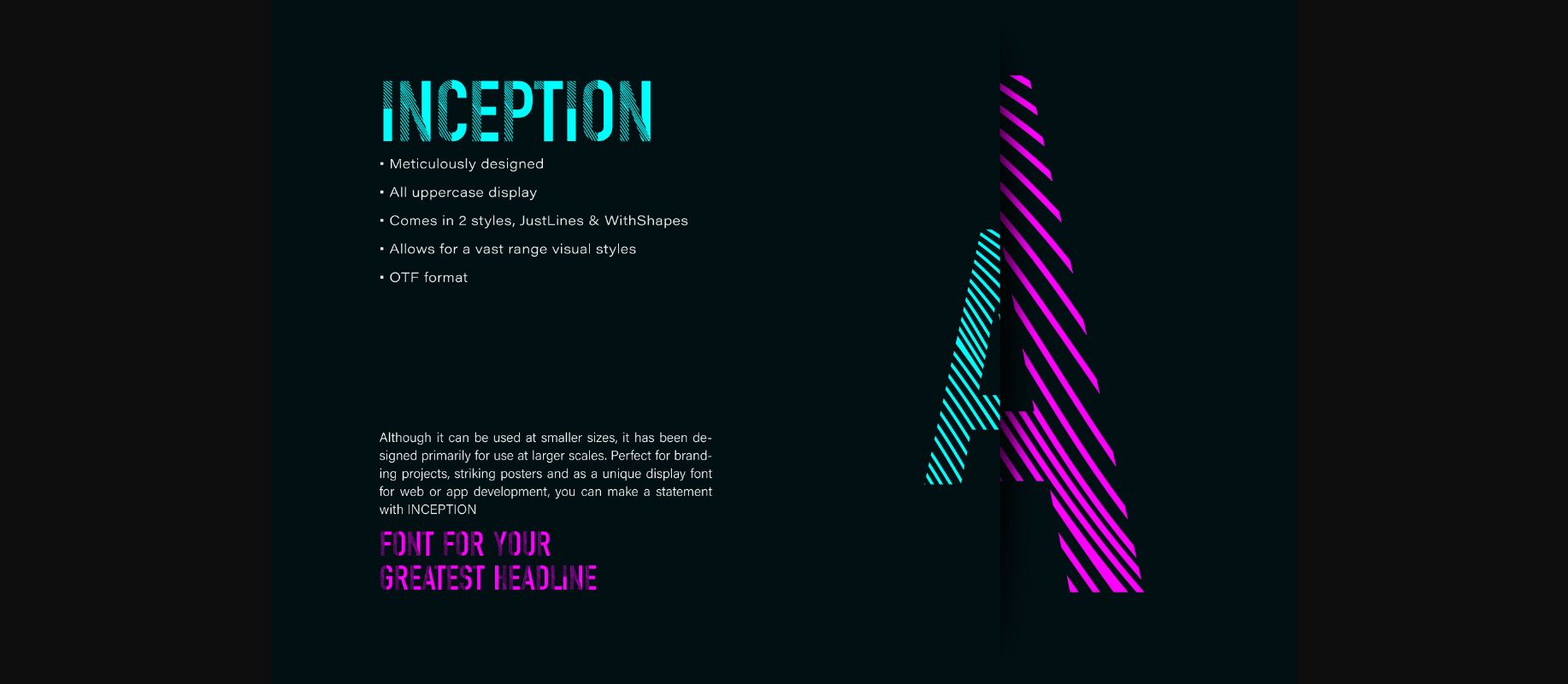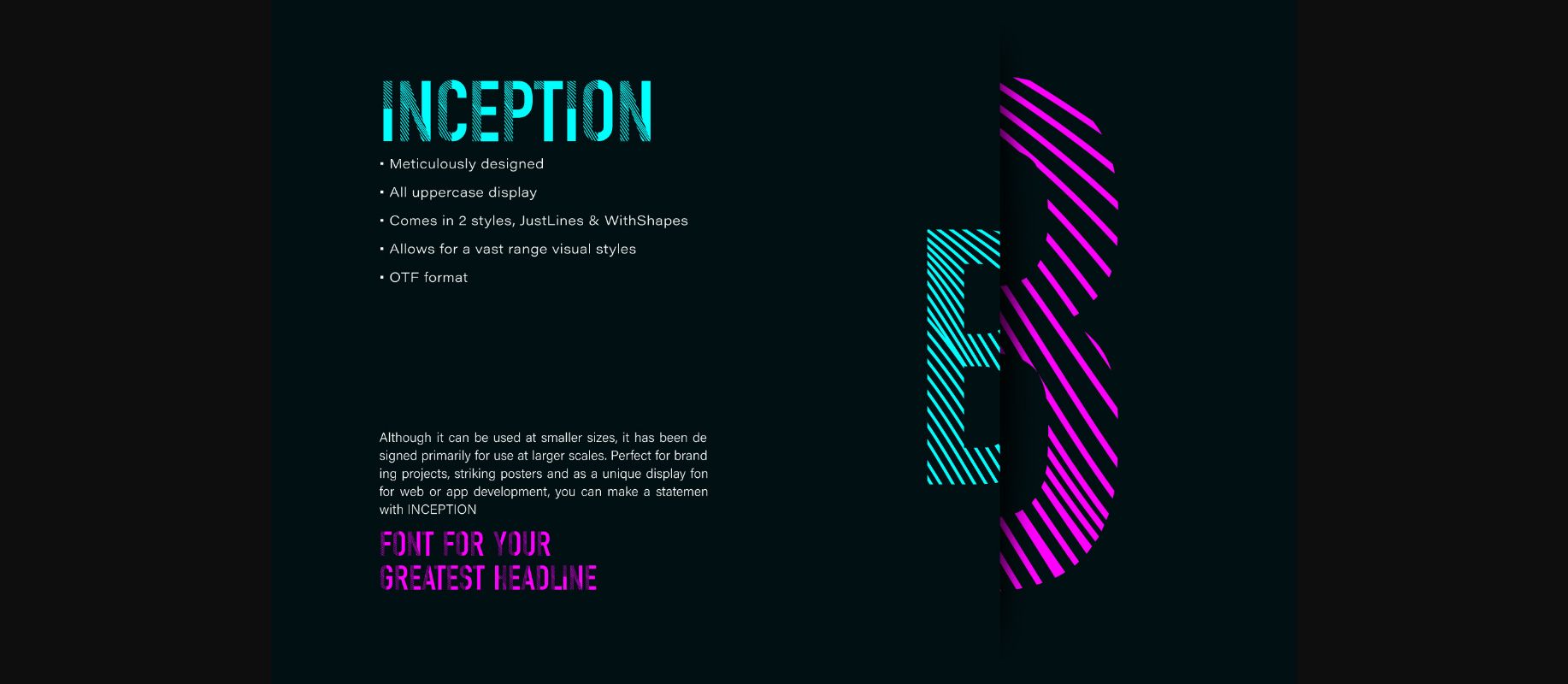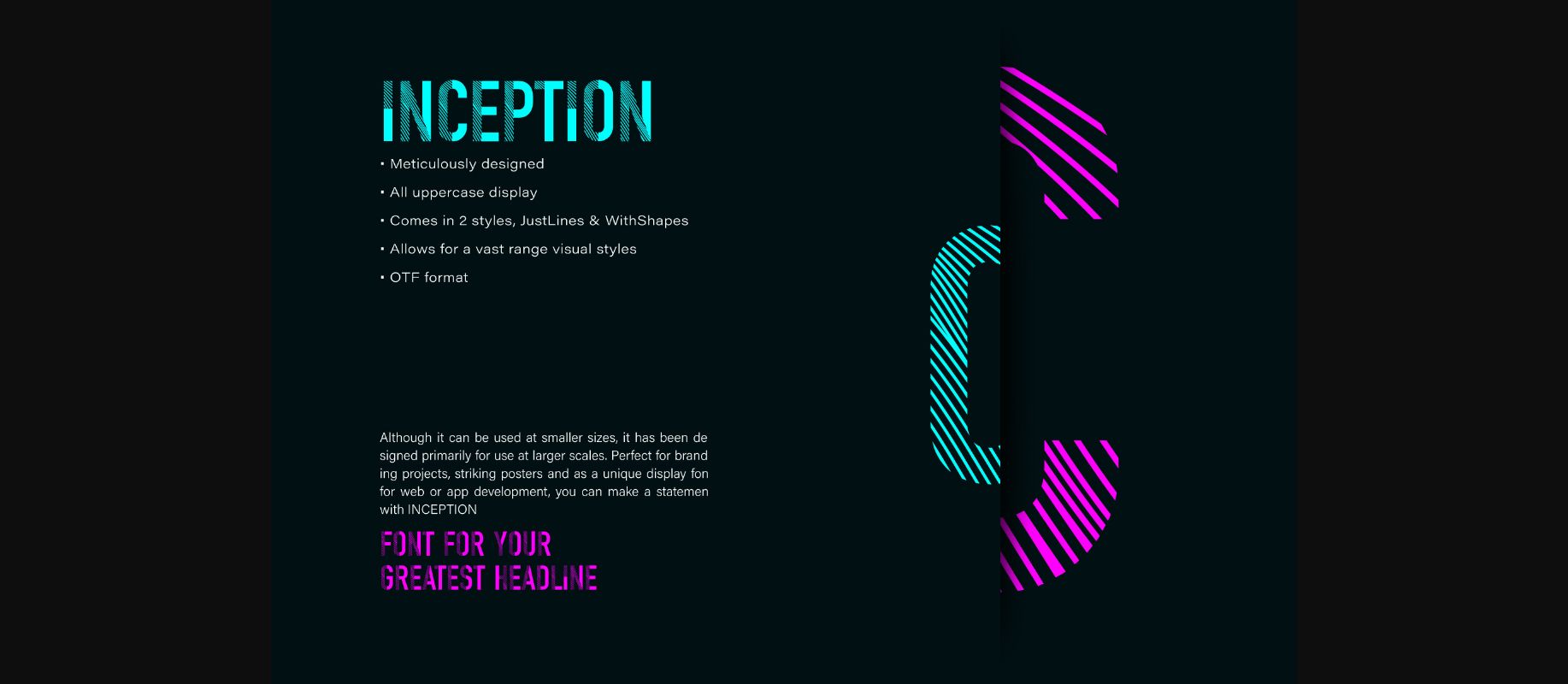
Inception Font
About Inception Font
Inception is a cool decorative font perfect for creating your greatest headline! It has bold characters and modern lines that will take any crafty project out of the ordinary!